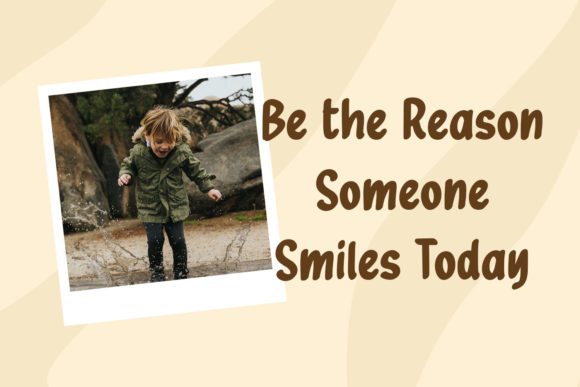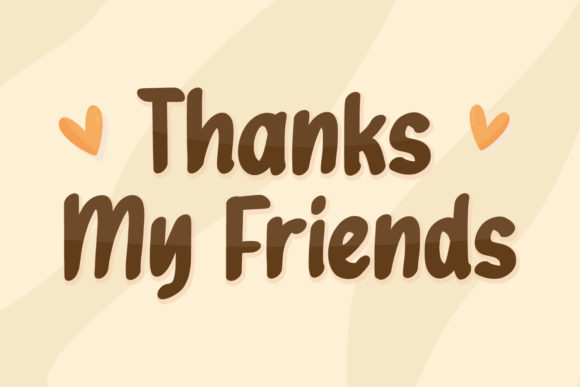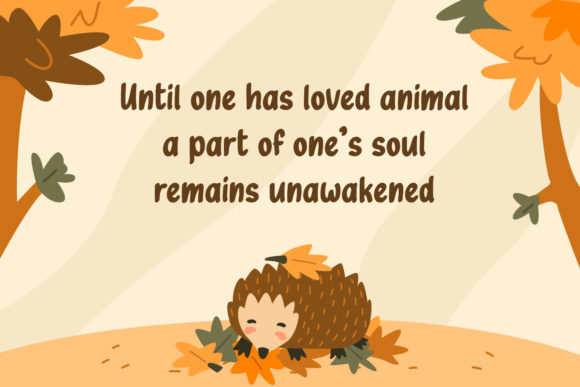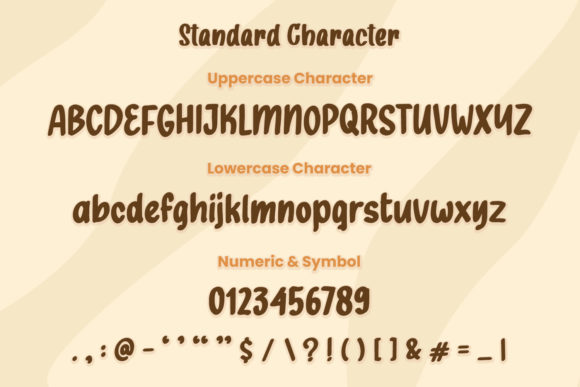
Rabbits and Foxes Font
About Rabbits and Foxes Font
Rabbits And Foxes is a playful and thick lettered handwritten font. It has cute and friendly characters and as a result, it matches a wide pool of designs. Add it to your most creative ideas and notice how it makes them come alive!